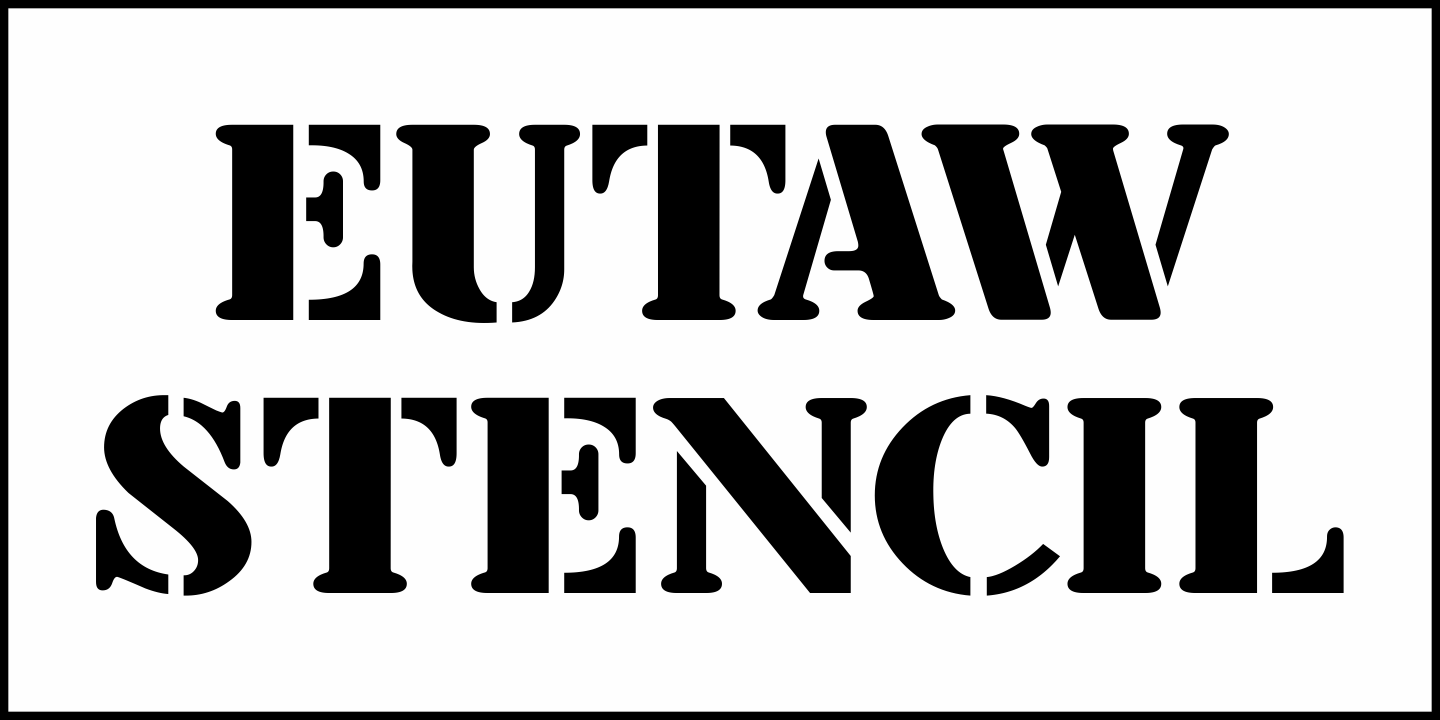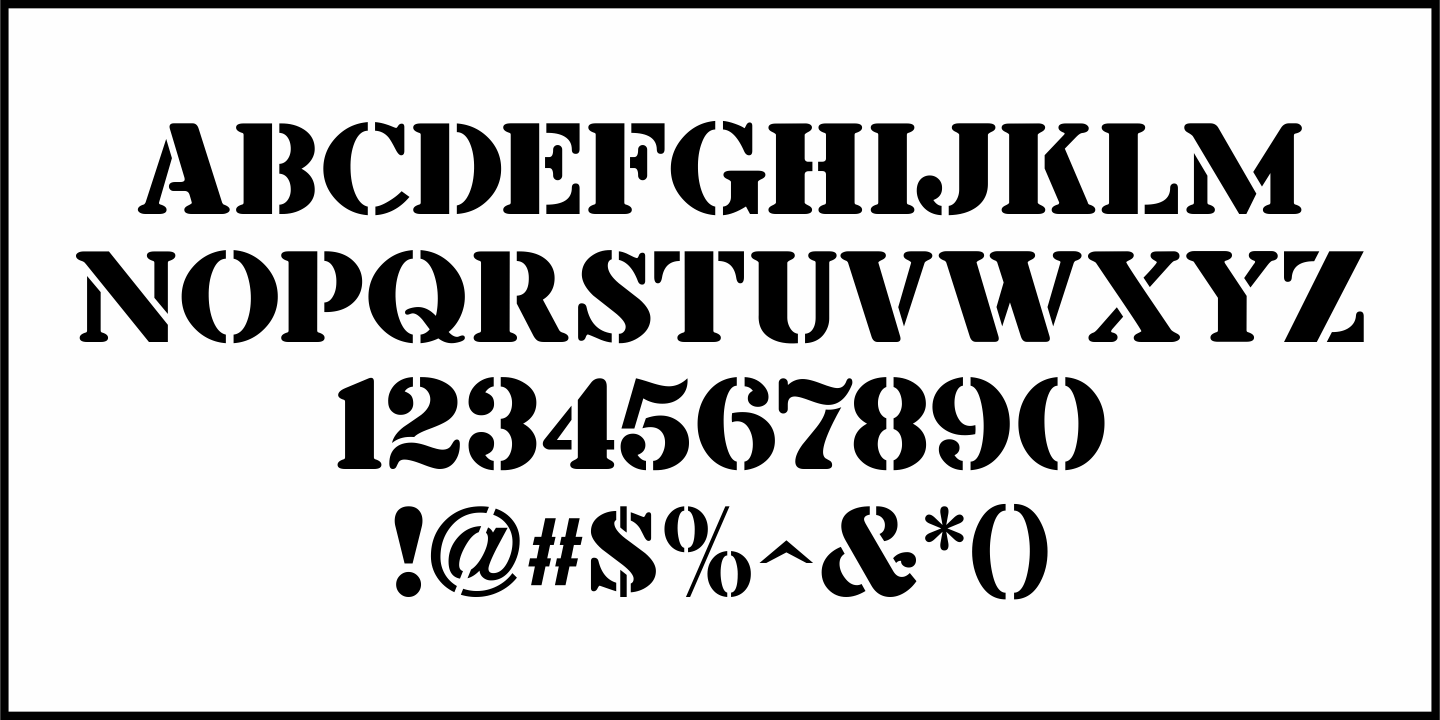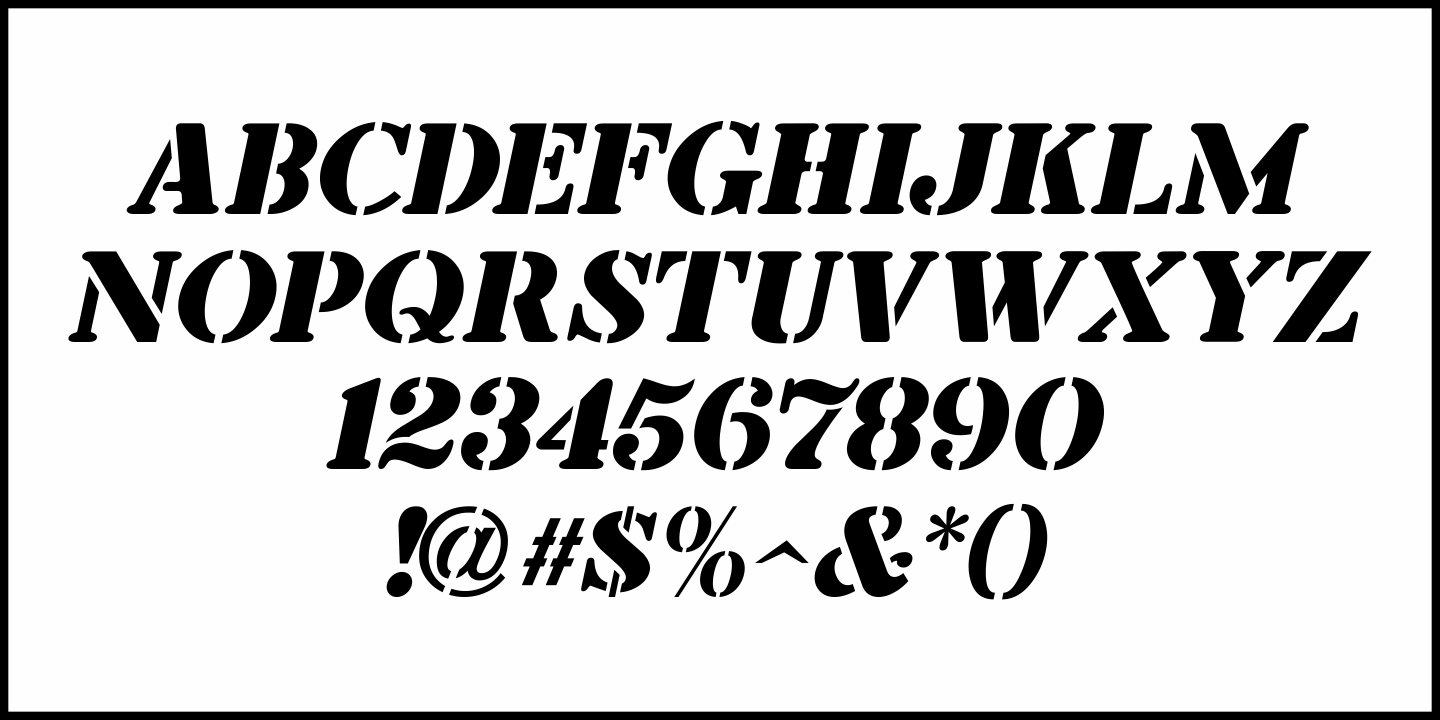
Eutaw Stencil
A hand lettered emulation of a Roman stencil type face on the cover of the folio for the Stenso School Set was the basis for Eutaw Stencil JNL, which is available in both regular and oblique versions.
The Stenso School Set (circa 1940-41) was comprised of three stencils – two lettering guides and a map of the [then] 48 United States.
Developed and patented by Baltimore school teacher Ruth Libauer Hormats, her stencils were the first to offer a system for accurate letter spacing and ease of use.
“Eutaw” (as part of the font’s name) is taken from Eutaw Place, the street where Ruth and her husband lived at the time of Stenso’s inception. To the Cherokee, the name means “Creek Indian”.